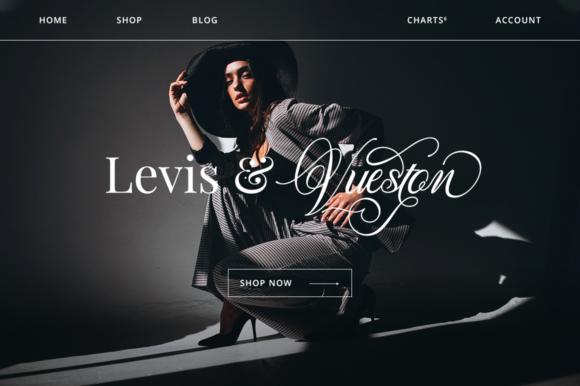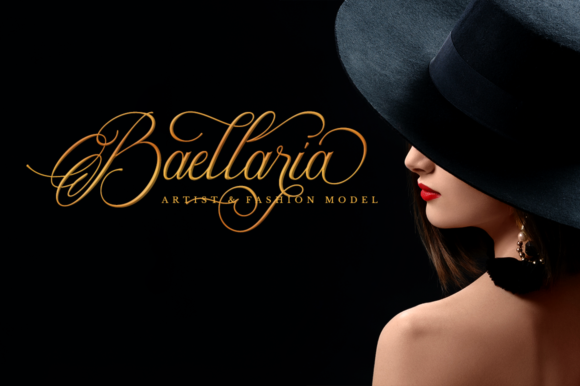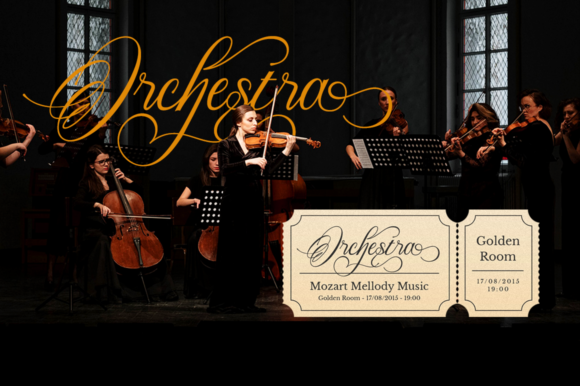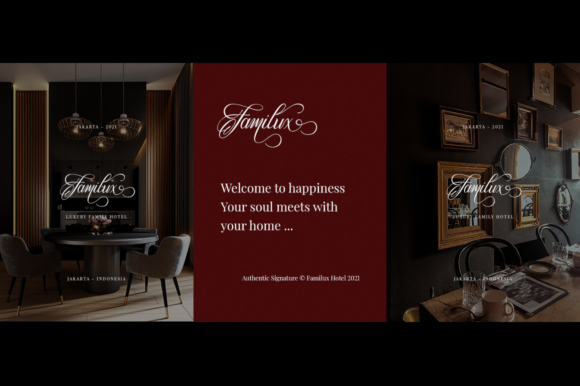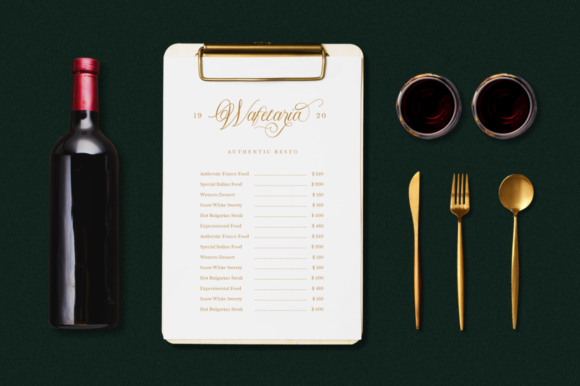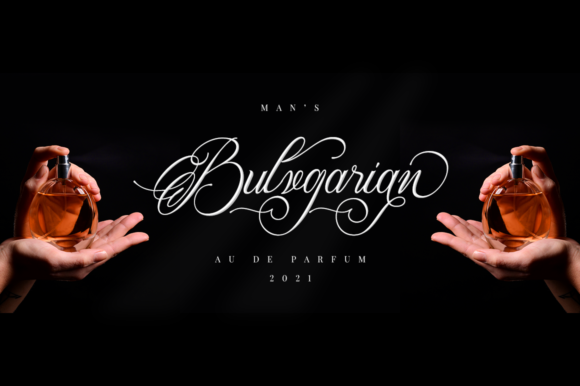
Introduction to Memorable Font
Do you remember that moment when you stumbled upon a design that left you speechless? For me, it was a beautiful wedding invitation with a delicate script font that seemed to dance across the page. The intricate details and elegant feel of the font immediately caught my attention, and I knew I had to learn more about it. That font was none other than the Memorable Font, a lovely and delicate script font that exudes elegance and class.
As a designer, I know how crucial it is to have a high-quality design resource like the Memorable Font at your disposal. With its transparent background and PUA encoded glyphs, this font is perfect for adding a touch of sophistication to any creative project. Whether you’re working on a logo, a business card, or a brochure, the Memorable Font is sure to impress. And the best part? You can download it for free, making it an invaluable resource for any designer looking to elevate their designs.
Honest Review: Memorable Font
As a designer, I’m always on the lookout for high-quality design resources to elevate my creative projects. Memorable Font is one such resource that caught my attention, and I’m excited to share my honest review.
What works well: ✨ Memorable Font offers a wide range of stylish and unique fonts that can add a touch of personality to any design project. The fonts are well-designed, and the transparent background makes it easy to use them in various design scenarios. The free download option is also a huge plus, making it accessible to designers of all levels.
- Wide range of stylish and unique fonts
⚠️ However, I do have a few limitations to mention. The font library is not exhaustive, and some of the fonts may not be compatible with certain design software. Additionally, the free version has some restrictions on commercial use.
Overall, I’m impressed with Memorable Font, and I would definitely recommend it to designers who are looking for a reliable and high-quality design resource. With its unique fonts and transparent background, it’s a great addition to any design arsenal.
The Memorable Font is a high-quality design resource ideal for creative projects requiring unique typography. This font features a transparent background, making it versatile for use in various design applications.
The Memorable Font is ideal for:
- Branding and logo design.
- Infographic creation.
- Marketing materials.